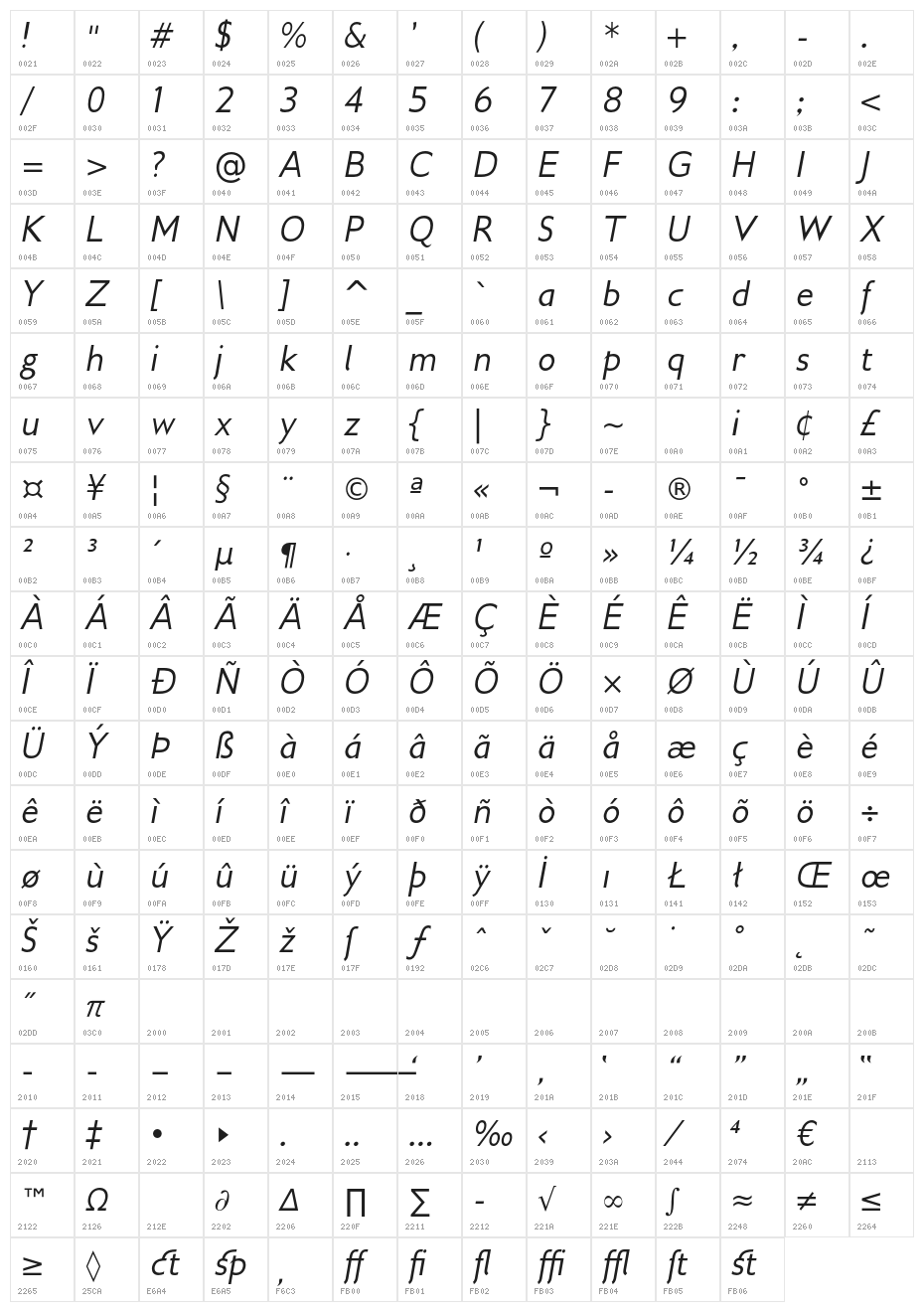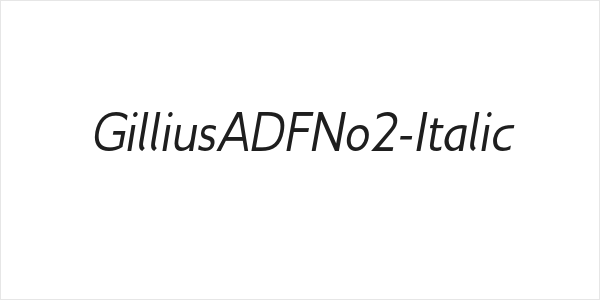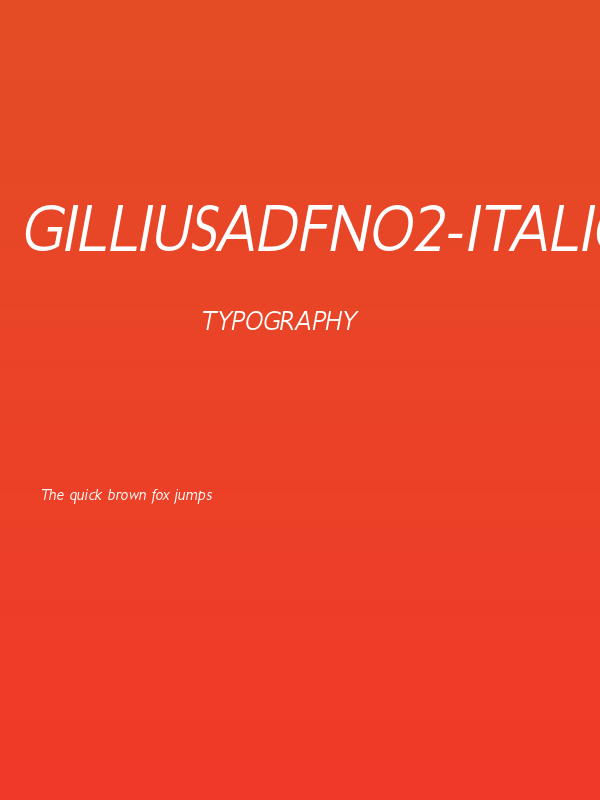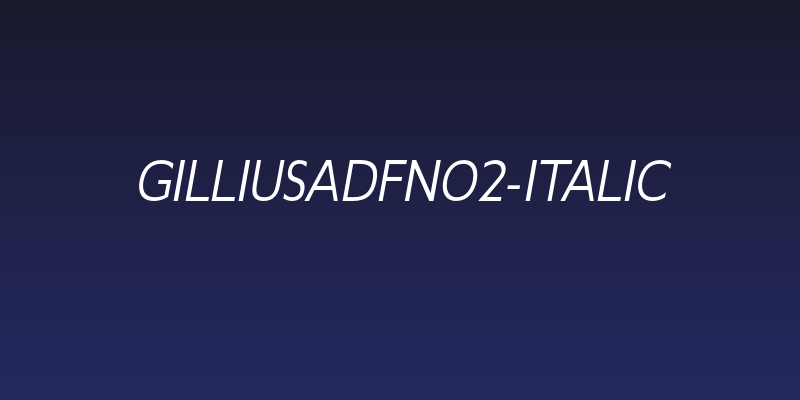
GilliusADFNo2-Italic Font
GilliusADFNo2-Italic Description
This font features a clean and modern sans-serif design with a slight italic slant, giving it a dynamic and forward-moving appearance. The characters are well-proportioned with a consistent stroke width, contributing to its legibility and versatility. The uppercase letters are bold and assertive, while the lowercase letters maintain a friendly and approachable feel. The numerals are clear and distinct, making them suitable for various applications. Special characters are included, enhancing its utility for diverse design needs. Overall, this font balances professionalism with a touch of elegance, making it suitable for both digital and print media.